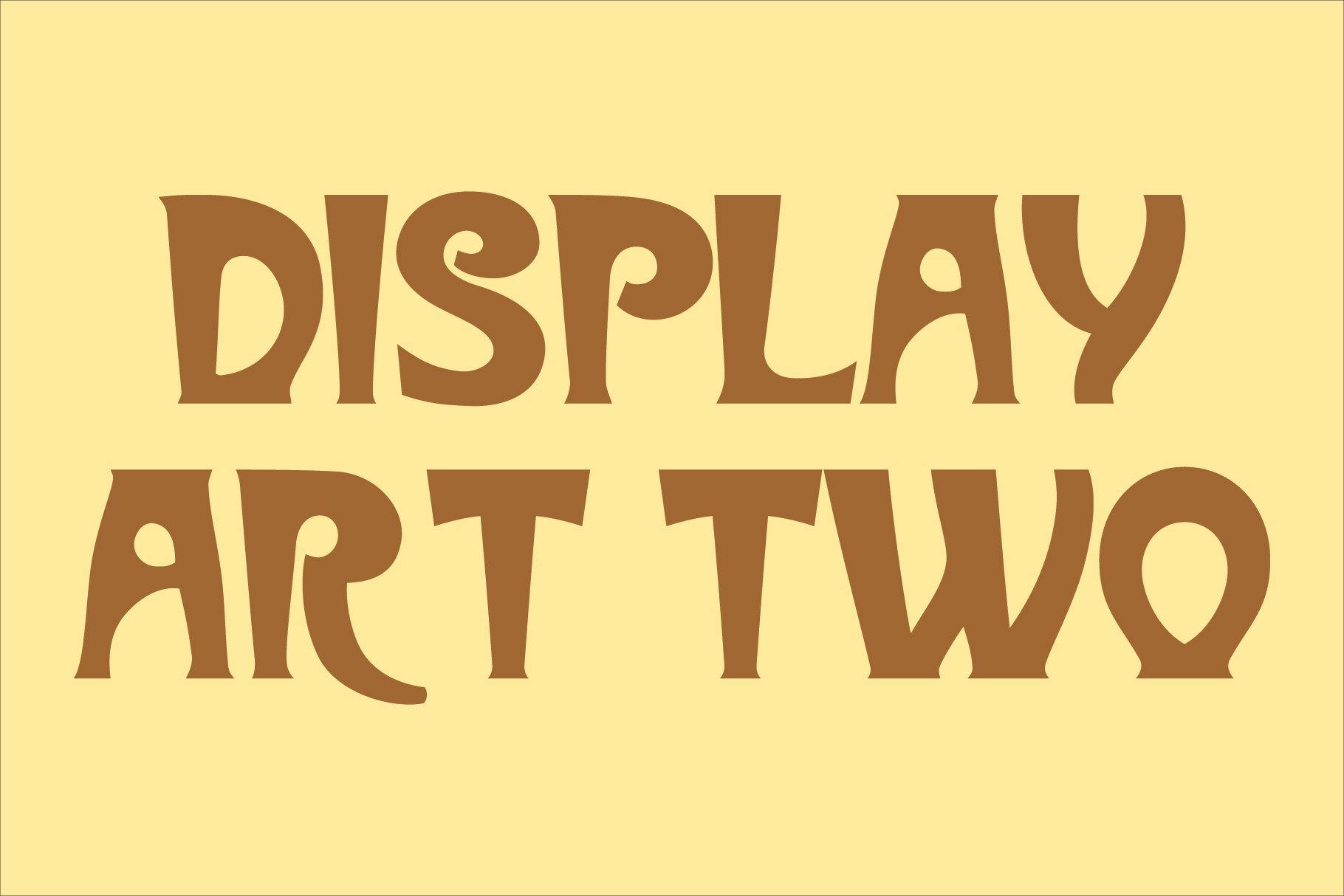
Display Art Two Font
The Display Art Two Font is a display fonts inspired by the art nouveau fonts popular at the turn of the 20th century. It is not intended for text use. It was designed specifically for display, headline, logotype, branding, and similar applications. It has uppercase and lowercase alphabets, numbers, and basic punctuation. It has an uppercase alphabet, numbers, and basic punctuation.